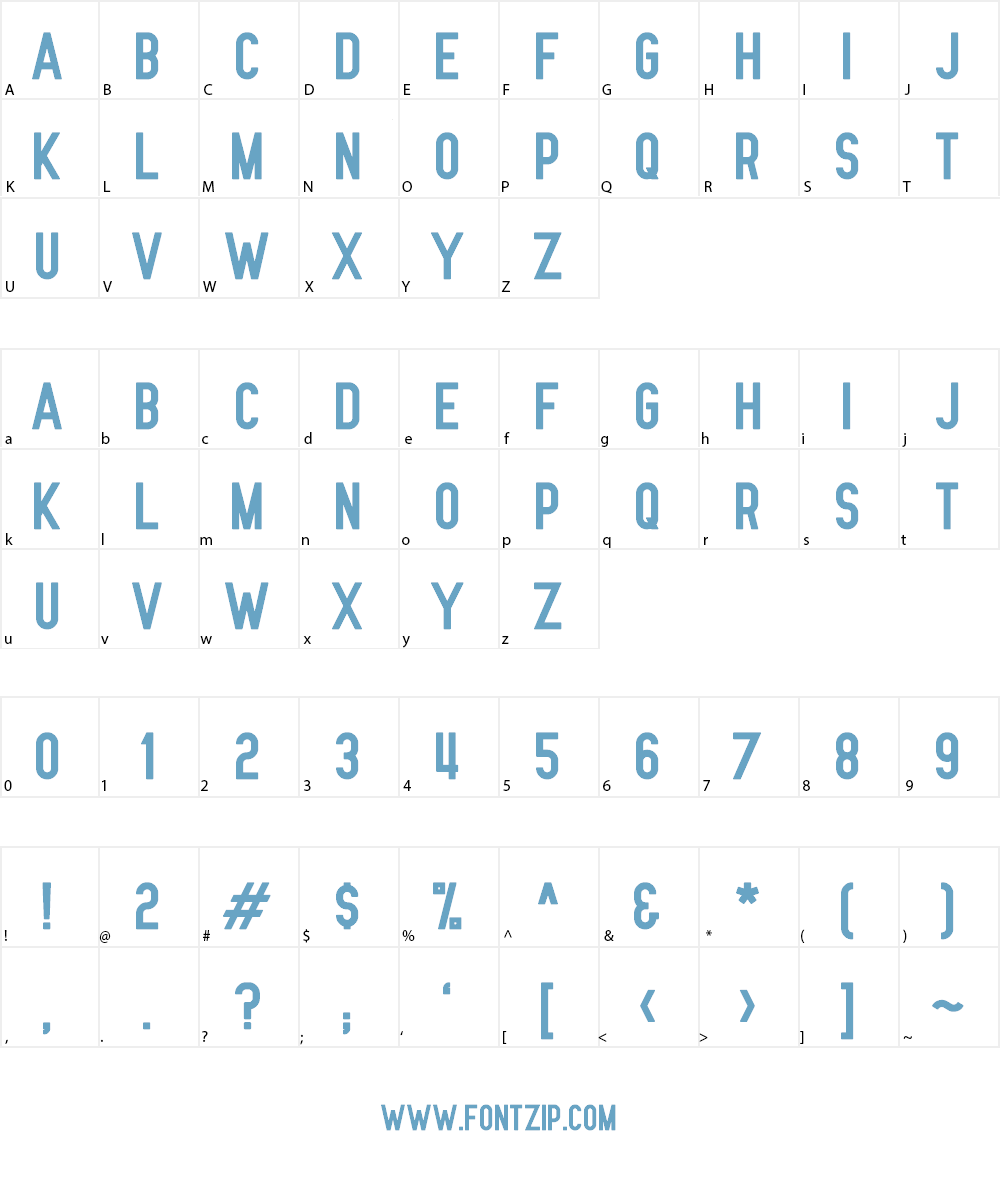
Nue Gothic Round is a mod of our classic Nue Gothic Regular font. We've expanded the D, H, and N, extended the cross bars on the E and F, and redrawn the K before applying a corner rounding to all characters.